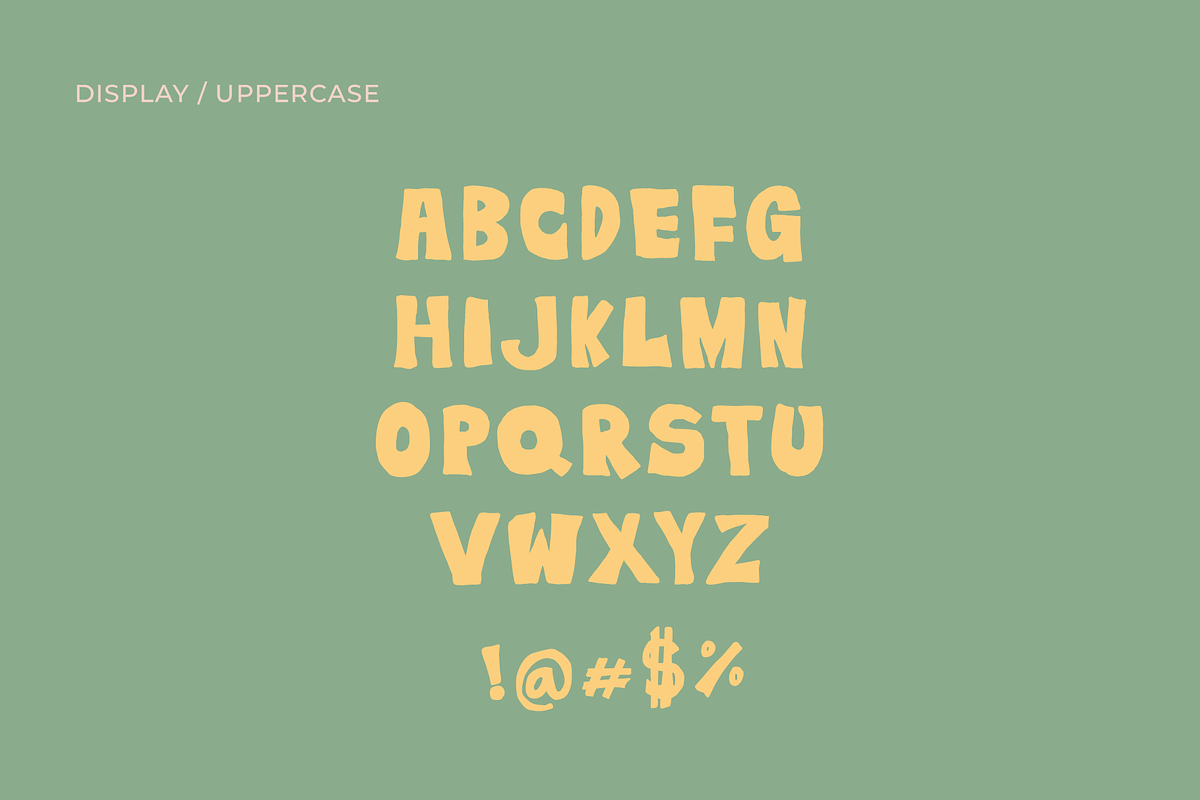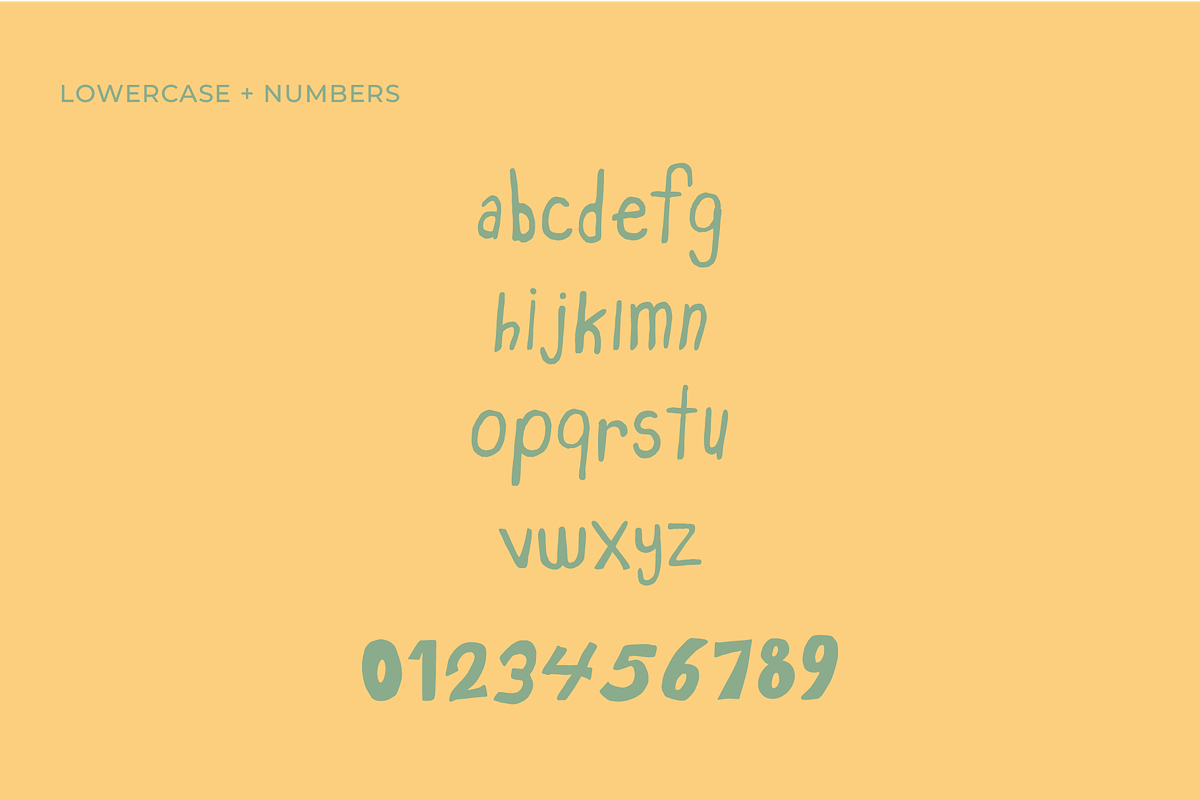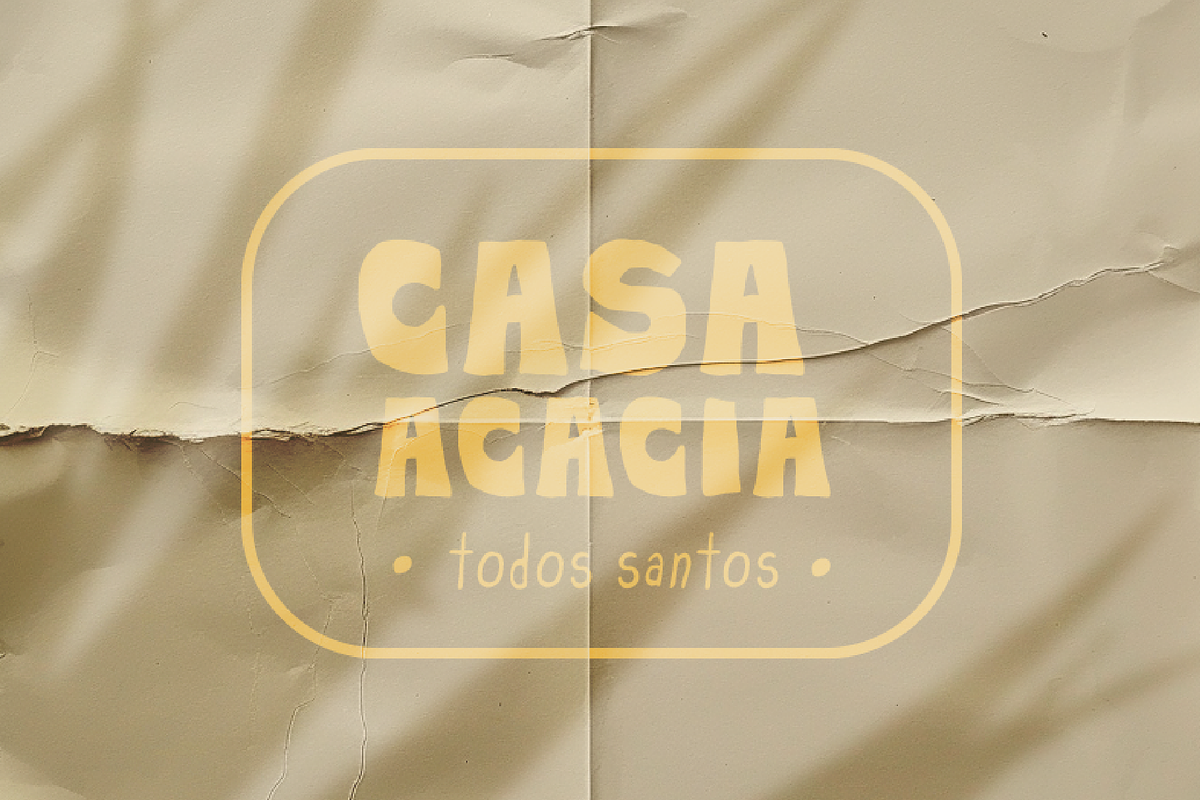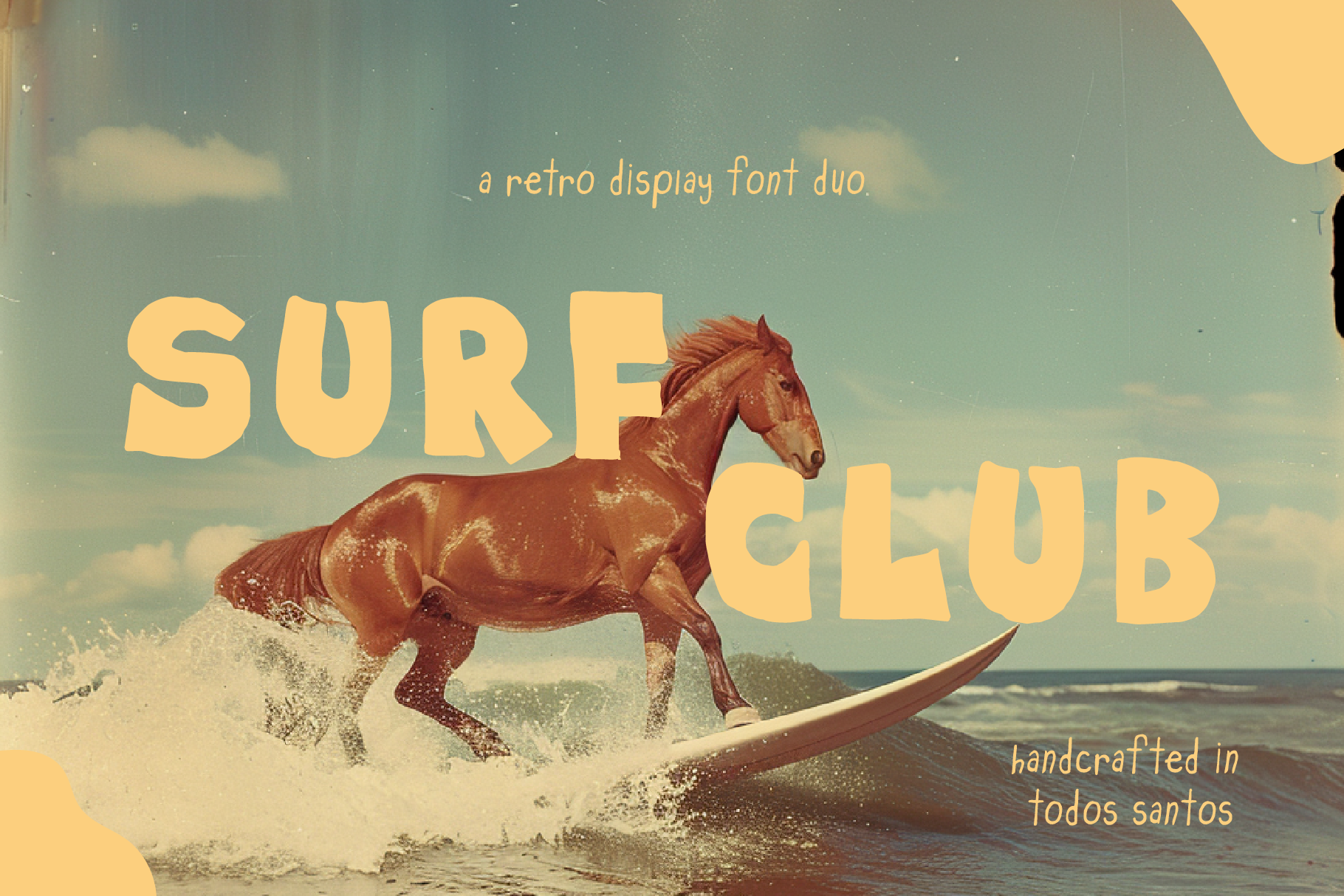
SURF CLUB - RETRO DISPLAY FONT DUO
Inspired by a 1968 surf poster, Surf Club features a bold uppercase display and a lowercase handwritten sans. The perfect mix of retro and modern.
Handcrafted in Todos Santos, Baja California Sur